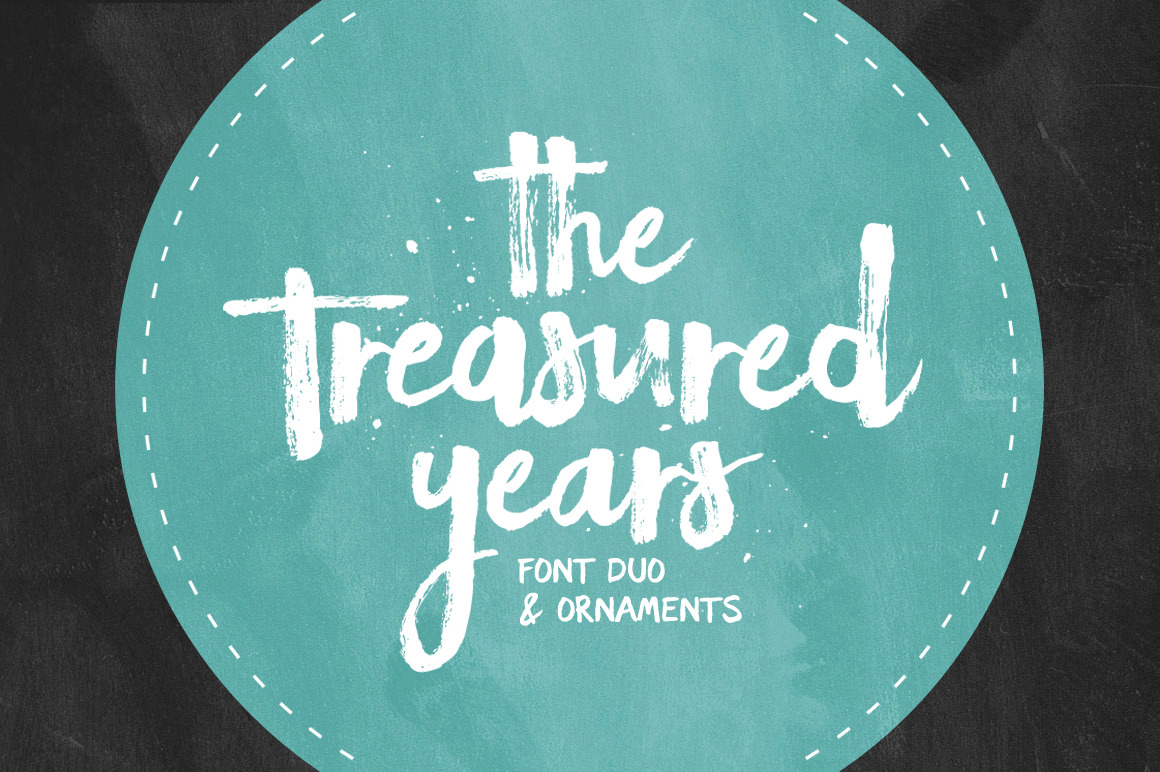
The Treasured Years Font Duo + Bonus
The Treasured Years is a set of 2 hand-painted fonts, designed to combine perfectly and allow you to create beautiful typography quickly and easily. With a very distinct bold dry-brush effect, this font set is perfect for creating hand-lettered quotes, logos and printed designs with a rustic & personal touch. Also included is a set of 24 bonus ornaments, designed to give your text that extra touch of detail & attention.
The Treasured Years Script is a set of lowercase characters which includes a large range of punctuation glyphs, numerals, and supports international languages. Stylistic alternates for several key characters are also available, you can access these simply by switching between upper & lower case glyphs within this font.
The Treasured Years Display is a supporting set of upper-case characters which includes basic punctuation, numerals, and supports international languages.
The Treasured Years Ornaments is a set of 24 hand-drawn elements including flourishes, swirls, stars, hearts, paint-splatters, underlines & arrows.